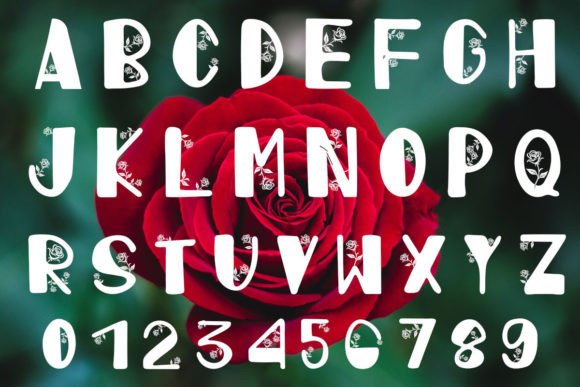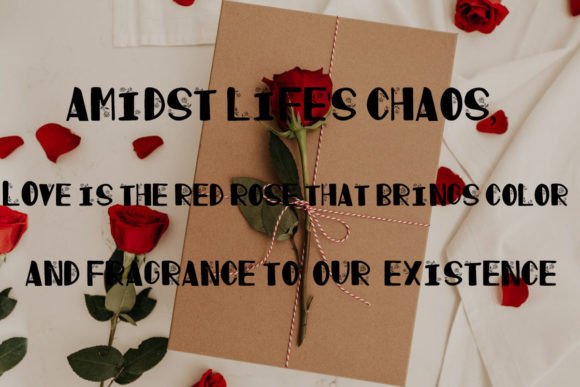
Introduction to Bountiful Bliss Rose Font
Imagine yourself surrounded by the serene beauty of a lush garden on a warm summer day, the sweet fragrance of roses filling the air. As a designer, you’re always on the lookout for that special something to elevate your creative project. That’s where the enchanting Bountiful Bliss Rose Font comes in – a true masterpiece that will transport your audience to a world of elegance and joy.
As you embark on your next design adventure, wouldn’t you want a high-quality font that captures the essence of romance and sophistication? The Bountiful Bliss Rose Font is a treasure trove of design inspiration, offering a unique blend of intricate details and delicate charm. Whether you’re working on a wedding invitation, a greeting card, or a logo design, this stunning font is sure to bring your project to life with its transparent background and free download availability.
Key Features of Bountiful Bliss Rose Font
- High-quality, vector-based font design suitable for various creative projects, including wedding invitations, floral arrangements, and more.
- Features a transparent background, making it easy to place over any image or background without worrying about unwanted color or texture.
- Includes a range of sizes and resolutions, from 100 to 500 points, to accommodate various design needs and preferences.
- Unique, hand-drawn design elements and intricate details create a distinctive and elegant look that’s perfect for adding a touch of whimsy to your creative project.
- Designed to be versatile and adaptable, the Bountiful Bliss Rose Font is ideal for use in a variety of design applications, including digital art, print materials, and web design.
Honest Review: Bountiful Bliss Rose Font
I recently stumbled upon the Bountiful Bliss Rose Font, and I’m excited to share my thoughts on this beautiful design resource. ✨
Firstly, the font itself is a stunning creation that’s perfect for any creative project that requires a touch of elegance and sophistication. It’s available for free download, which is a huge bonus. The high-quality design and intricate details make it a valuable addition to any design library.
One of the standout features of the Bountiful Bliss Rose Font is its transparent background, which makes it incredibly versatile and easy to use. You can use it to create stunning watermarks, overlays, or even as a standalone design element.
Here are some of the key features that I loved about this font:
- High-quality design with intricate details
- Perfect for creative projects that require elegance and sophistication
- May not be suitable for projects that require bold or edgy typography
- Some users may find the font too ornate or overwhelming
Overall, I’m thoroughly impressed with the Bountiful Bliss Rose Font. It’s a beautiful design resource that’s perfect for anyone looking to add a touch of elegance to their creative project. ⚠️ While it may not be suitable for every project, I highly recommend it for those who appreciate high-quality typography and design.
For presentations and documents, use Bountiful Bliss Rose Font in PowerPoint and Word to add a touch of elegance and sophistication. The font’s high quality and transparent background make it perfect for creating professional-looking slides and documents.
Tips for Getting the Most Out of Bountiful Bliss Rose Font
To get the most out of Bountiful Bliss Rose Font, experiment with different font sizes, colors, and combinations to create unique and eye-catching designs. You can also use it as a free download to add to your collection of design resources.
Bountiful Bliss Rose Font is perfect for a variety of creative projects, including wedding invitations, birthday cards, and social media graphics. Its high quality and transparent background make it a valuable design resource for any project that requires a touch of elegance and sophistication.
Can I use the Bountiful Bliss Rose Font for commercial projects, such as product packaging or advertising?
Does the Bountiful Bliss Rose Font have a transparent background, suitable for use on images or backgrounds?
Yes, the Bountiful Bliss Rose Font features a transparent background, allowing you to easily place it on top of images or backgrounds without any visual distractions.